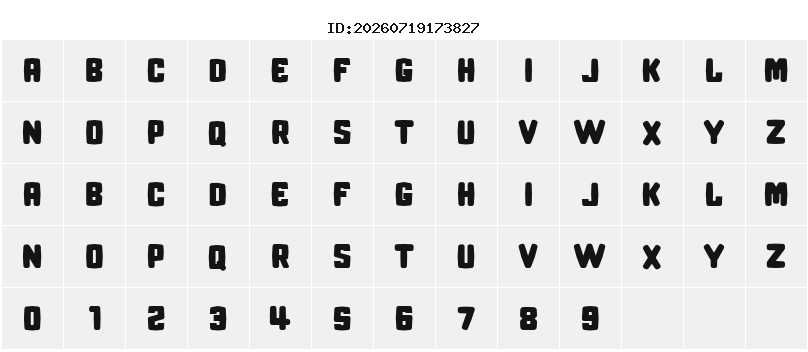
• Font Name: CF Revenge
• Designer: Steve Cloutier
• Manufacturer: CloutierFontes
• Description: CF Revenge Regular is a font by CloutierFontes, designed by Steve Cloutier in 2013.
About CF Revenge.ttf
CF Revenge.ttf is a modern, elegant sans-serif font designed for ultimate readability and visual harmony. Perfect for branding, headlines, web design, and print materials.